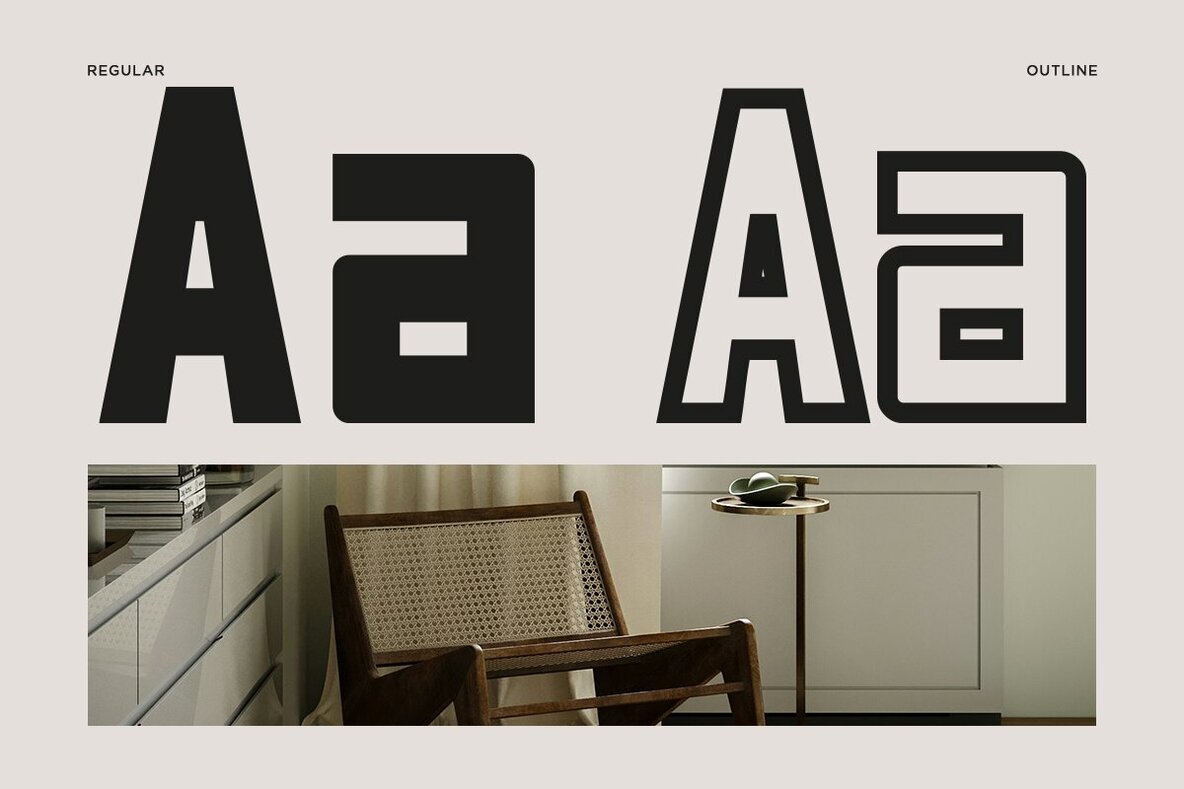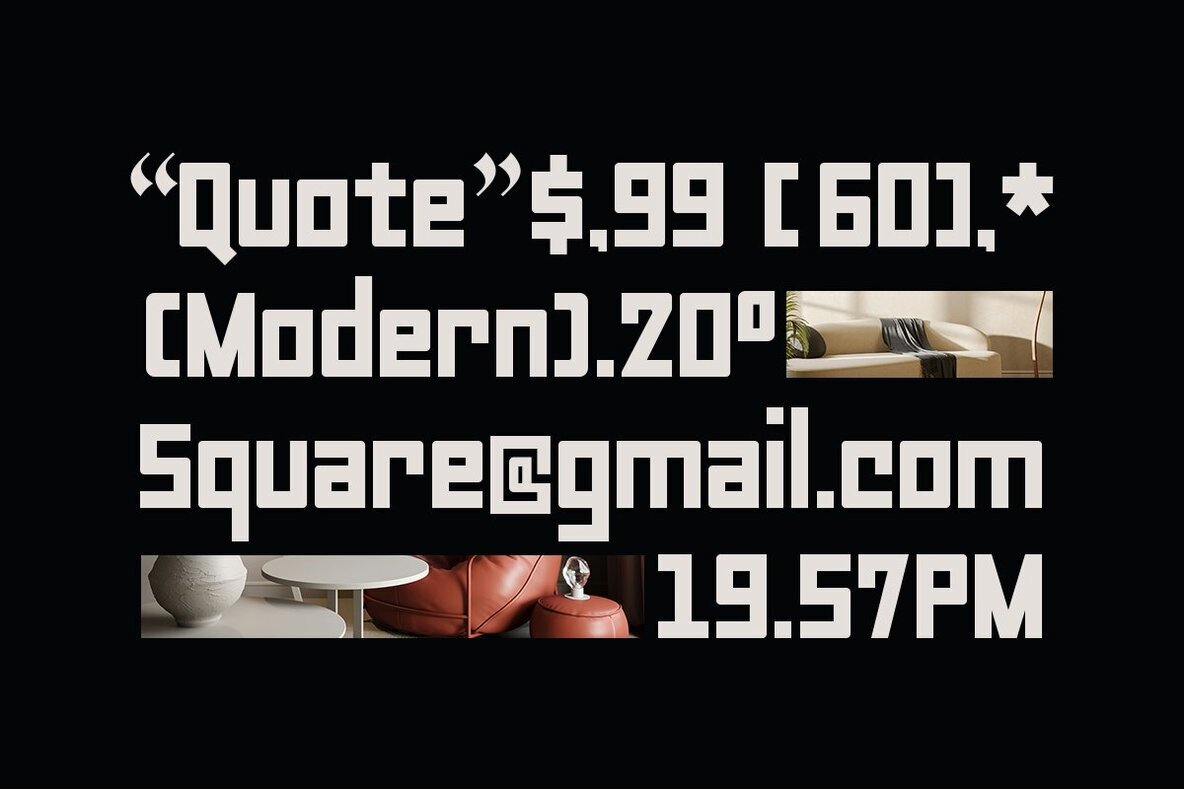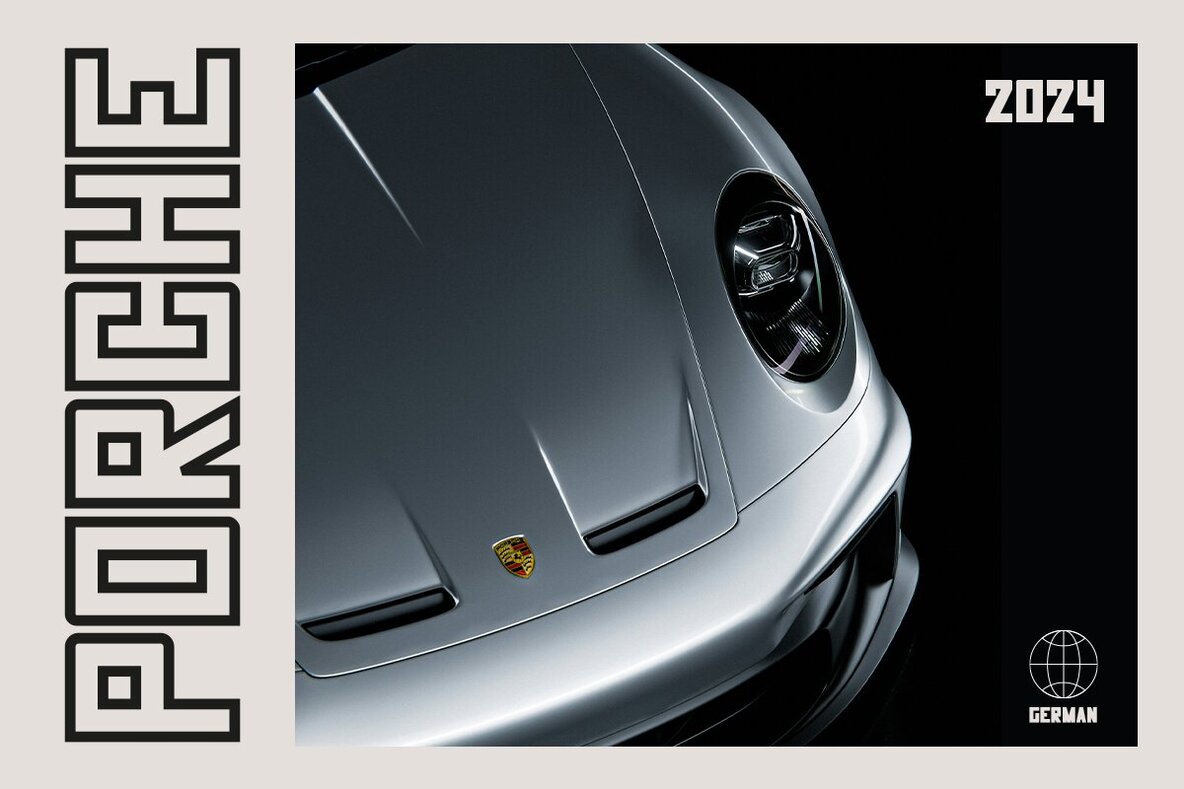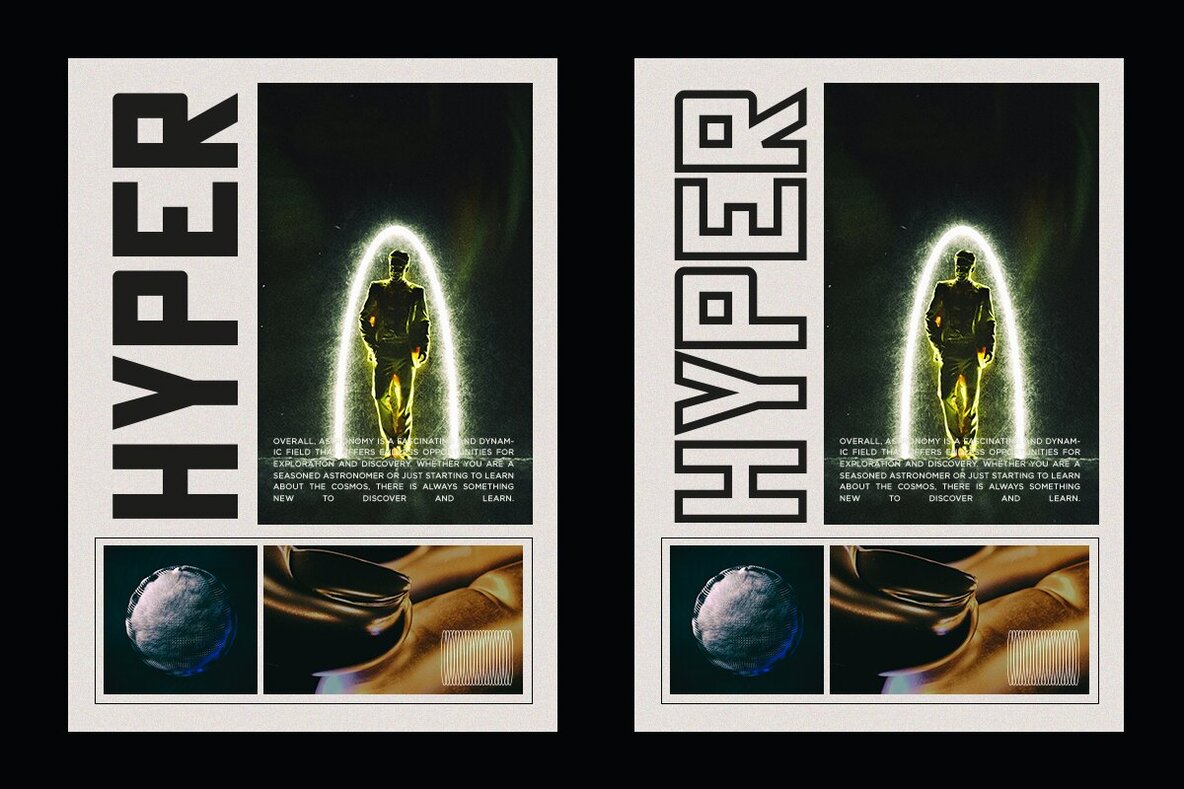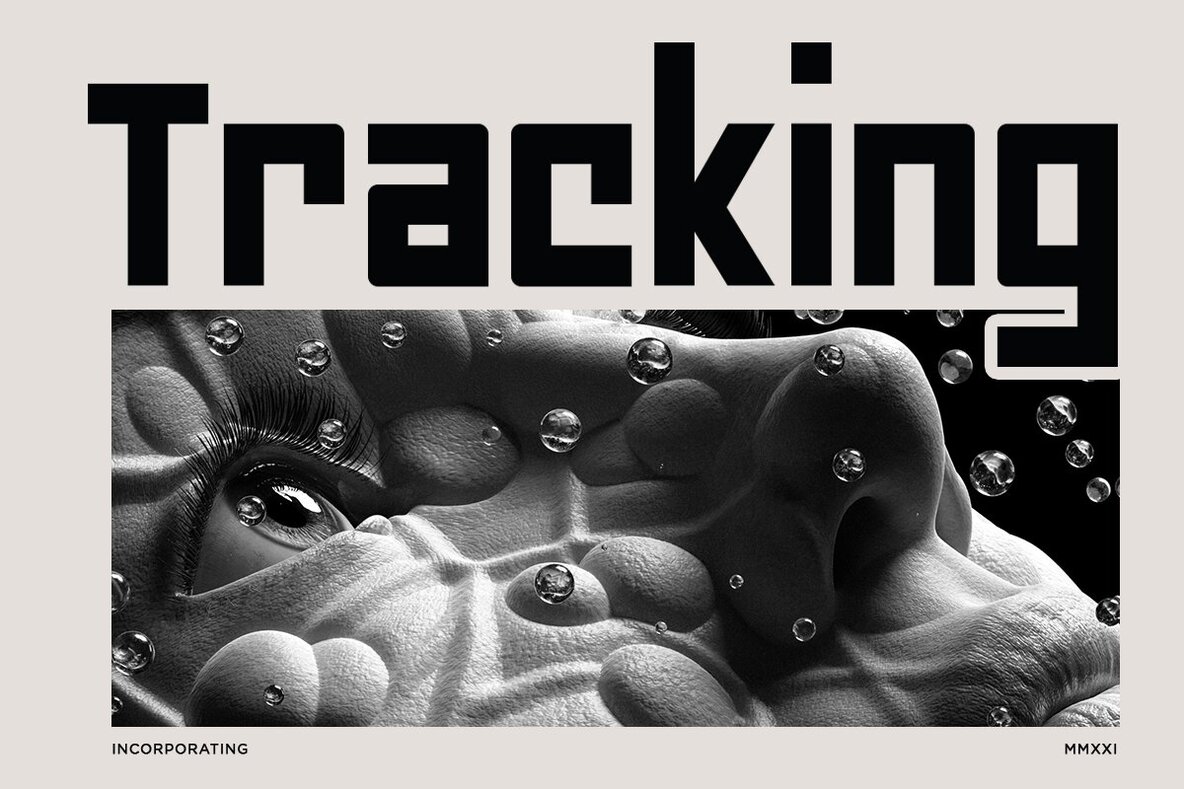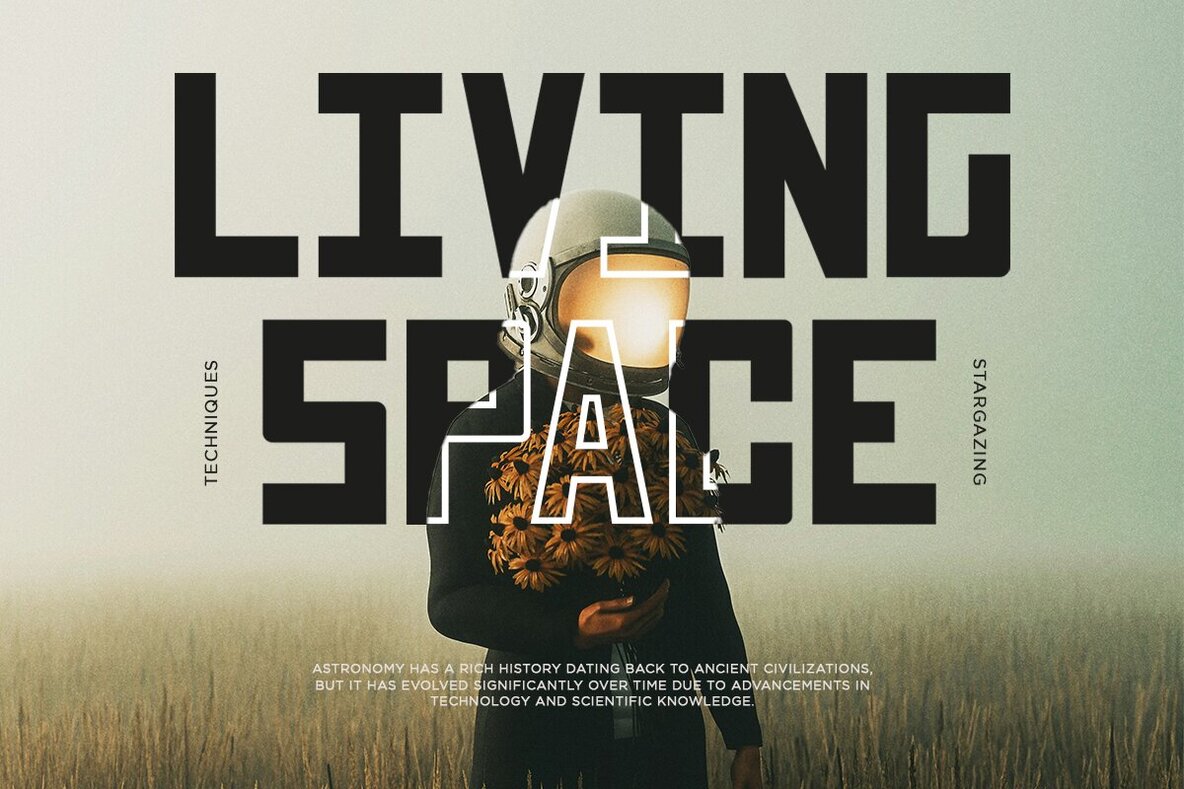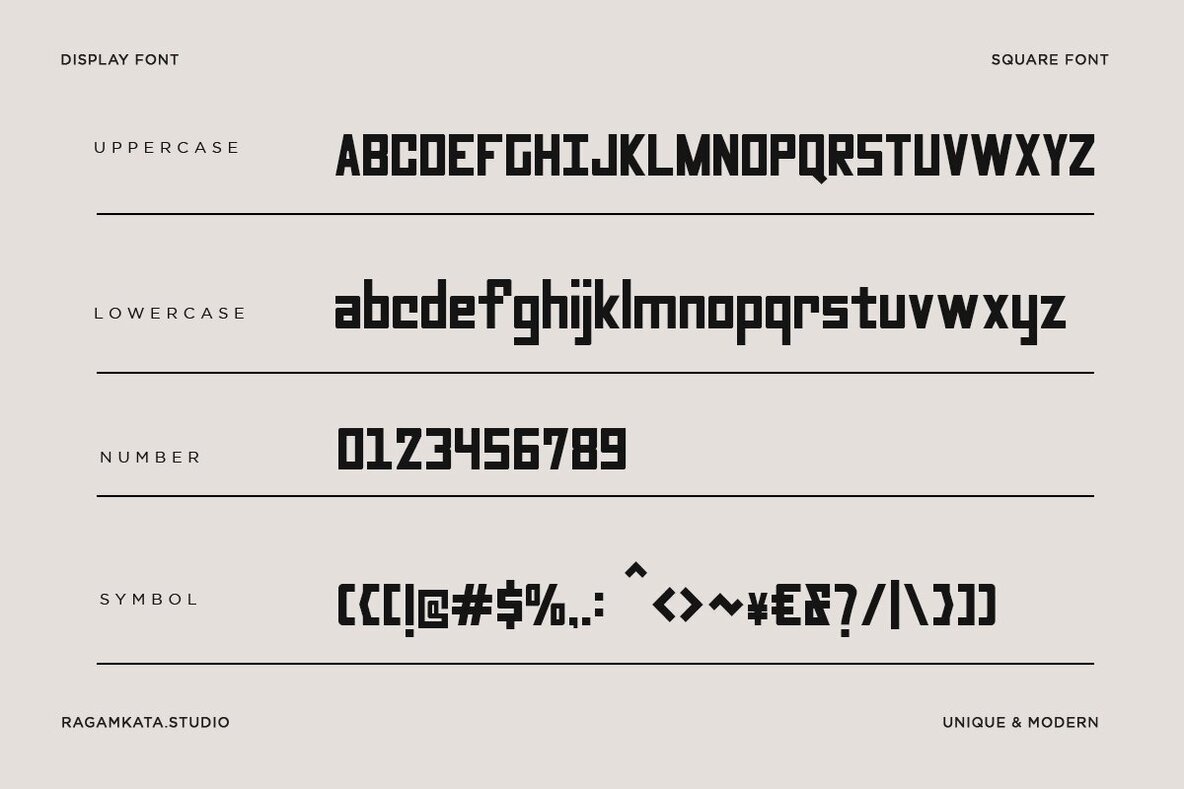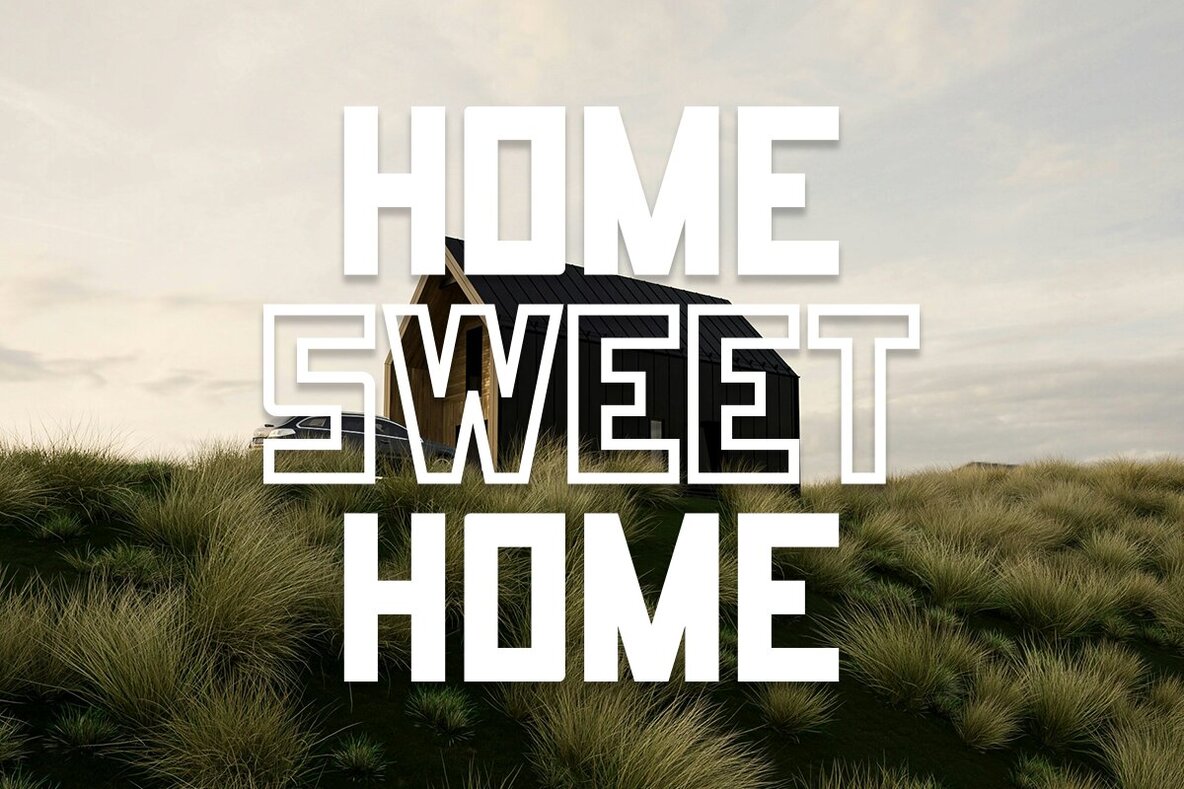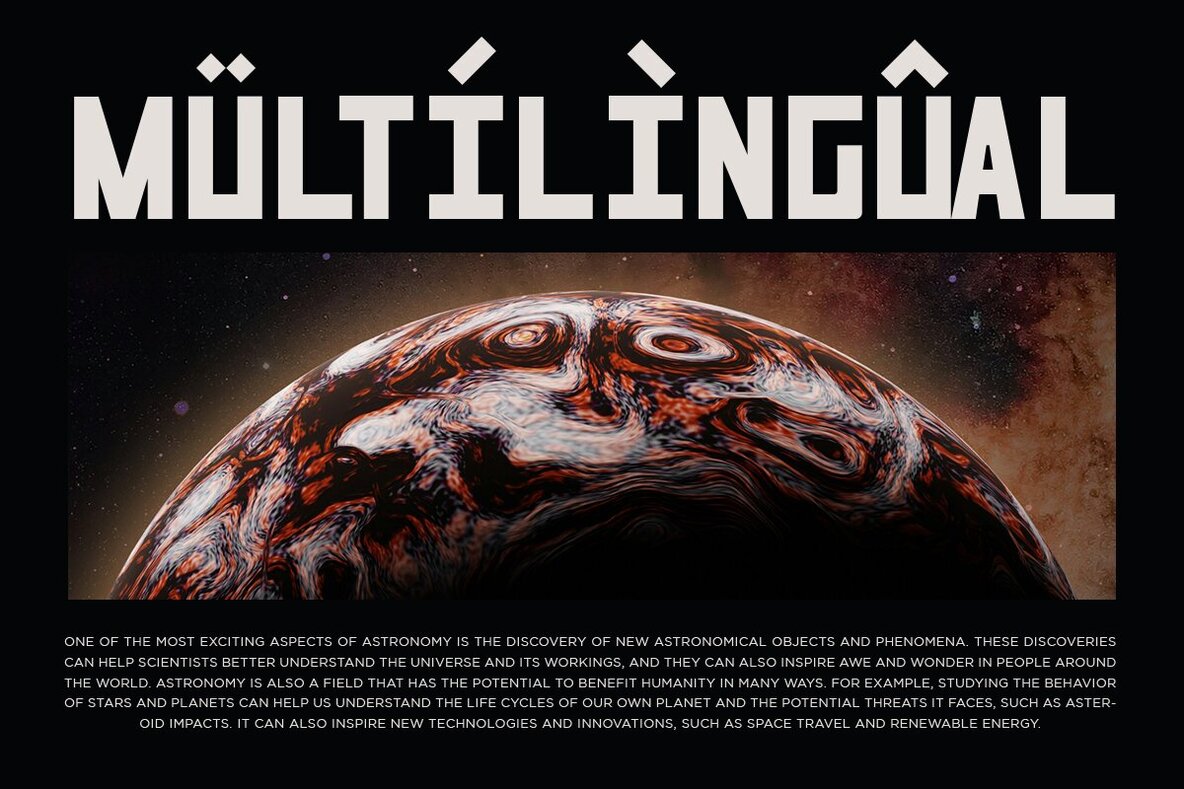
Angle Square Font
Angle Square is a unique and modern font crafted from square shapes, offering a fresh look for your design projects. Its distinctive style ensures your work stands out, providing an attractive and creative edge. Whether you're working on branding, web design, or print materials, Angle Square brings a contemporary feel that captures attention.
This font includes multilingual support and alternates, enhancing its versatility across various languages and design needs. With its geometric appeal and modern aesthetics, Angle Square is perfect for designers seeking a bold and innovative touch in their typography.